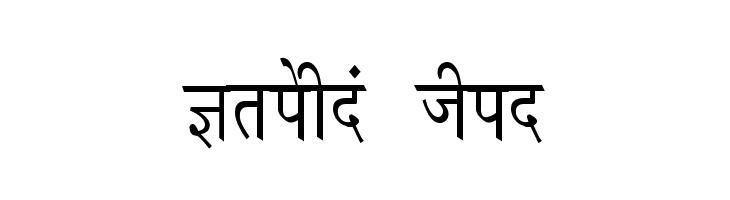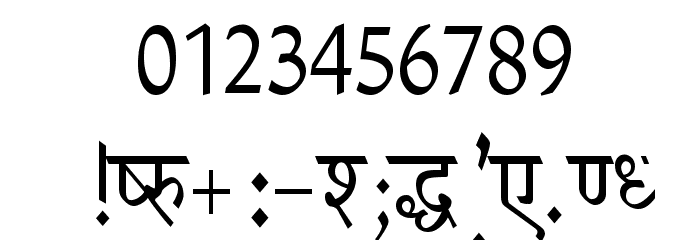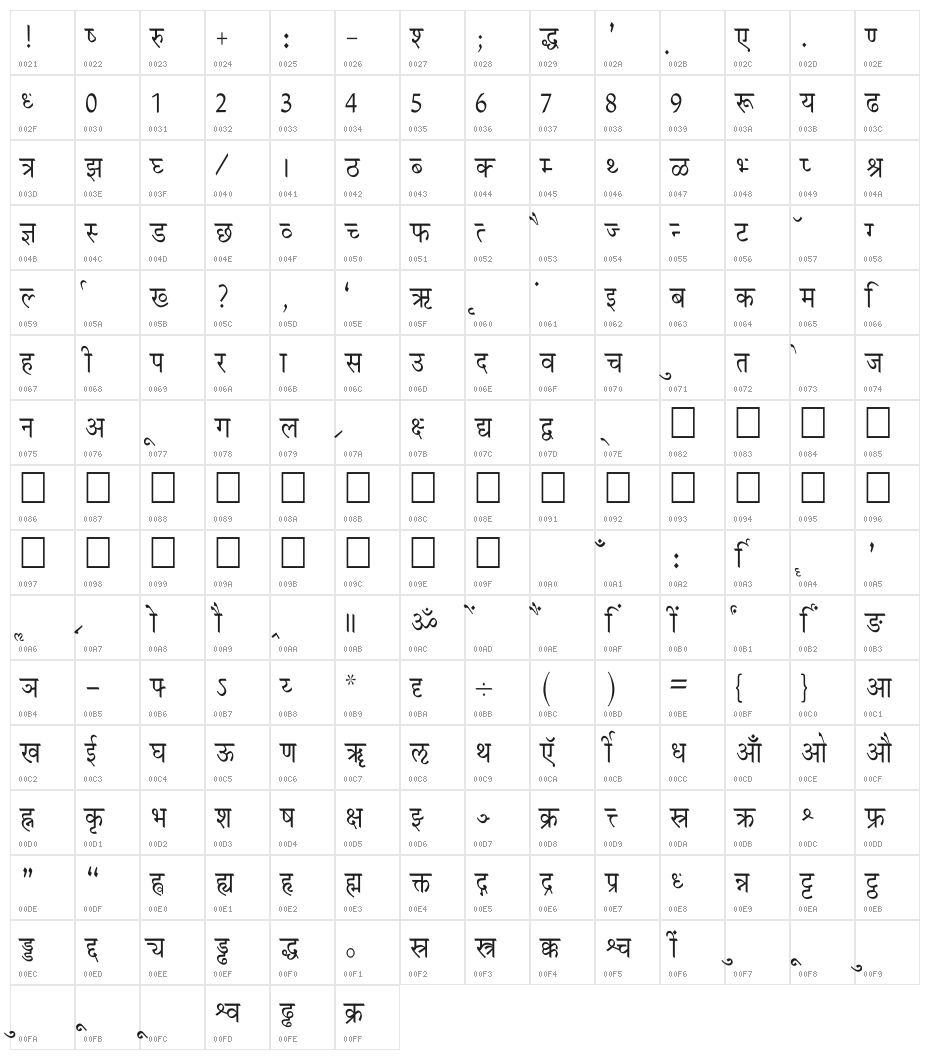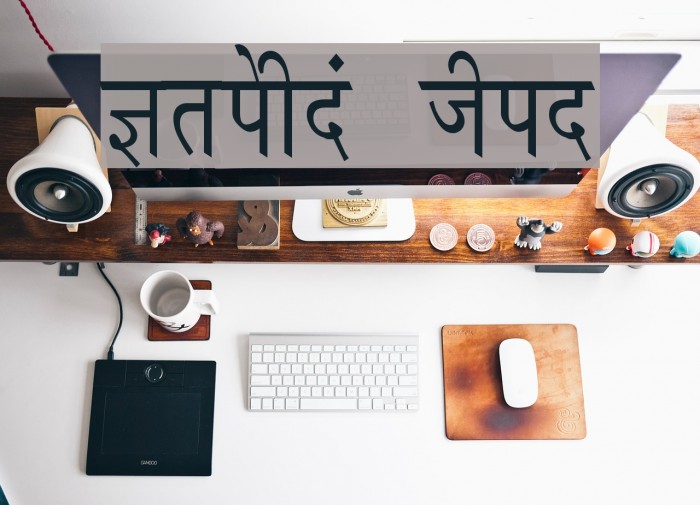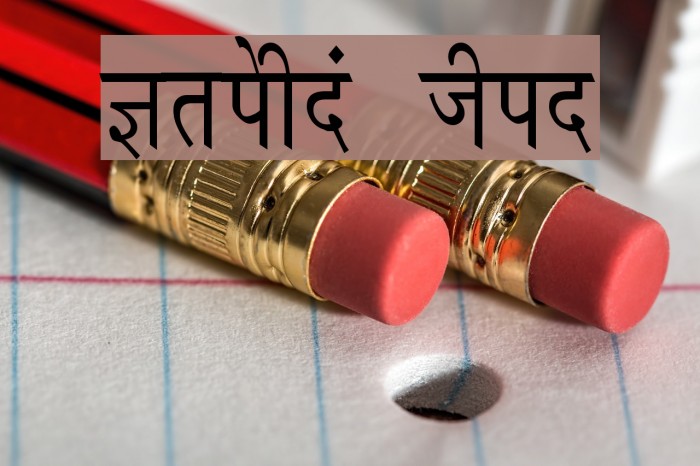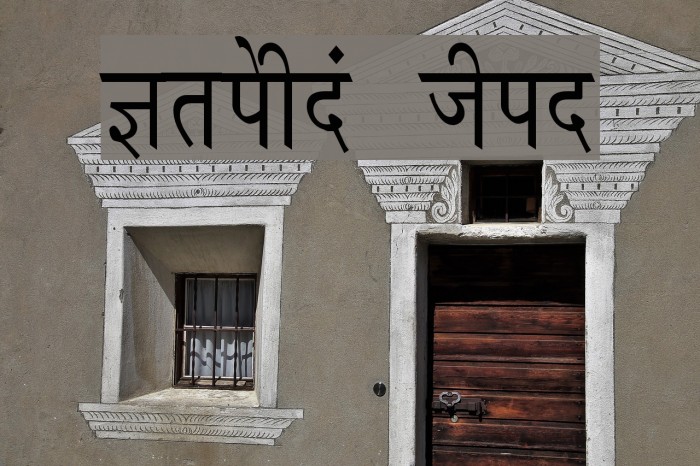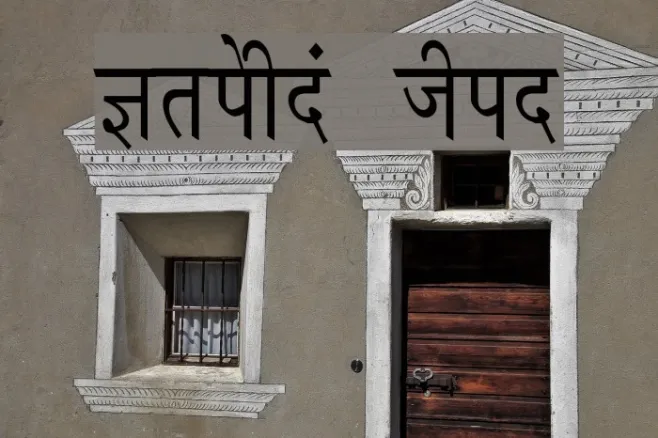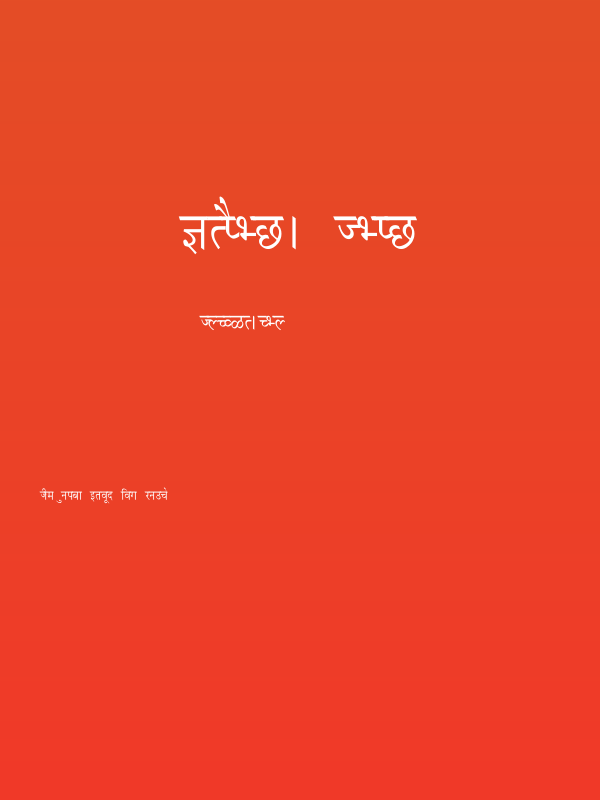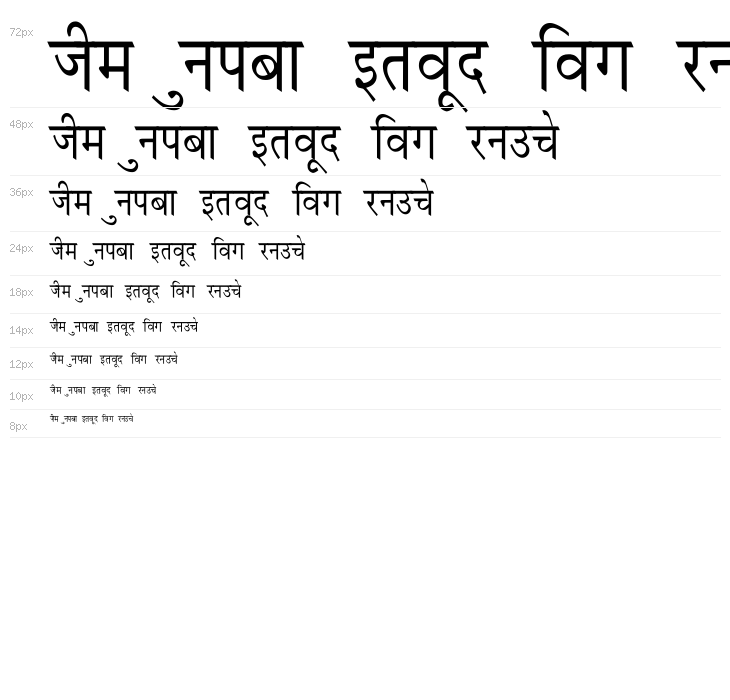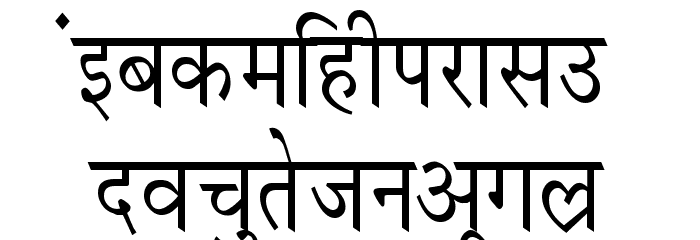
Krishna Thin Font
Krishna Thin Description
This font features a traditional Devanagari script style with a modern twist. The characters are elegantly crafted with a thin stroke, giving it a delicate and refined appearance. The script maintains a classic feel while incorporating subtle contemporary elements, making it versatile for various uses. The numerals are clear and distinct, complementing the overall aesthetic. Special characters are thoughtfully integrated, maintaining the font's cohesive look. This font is ideal for projects that require a blend of tradition and modernity, offering readability and style.
| Use Case | Headlines, Artistic projects, Cultural branding |
| Proposed Projects | Ideal for cultural publications, modern branding, and artistic projects requiring a traditional yet contemporary look. |